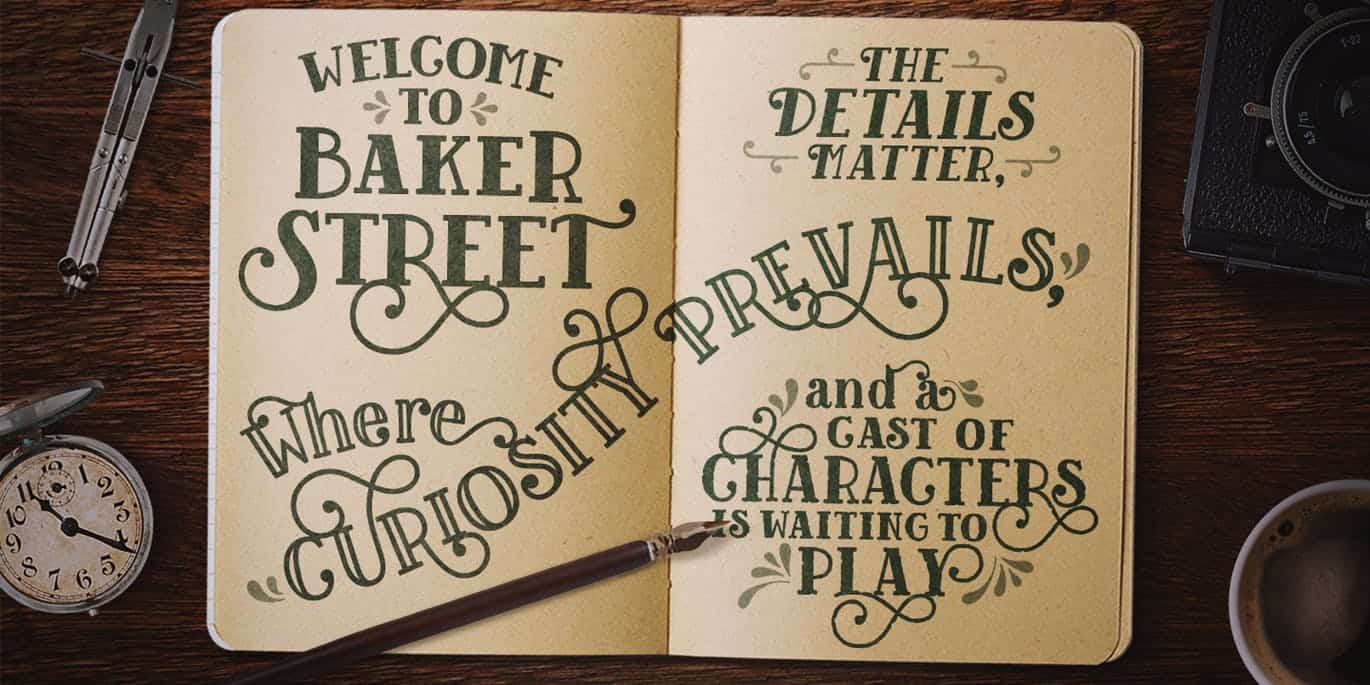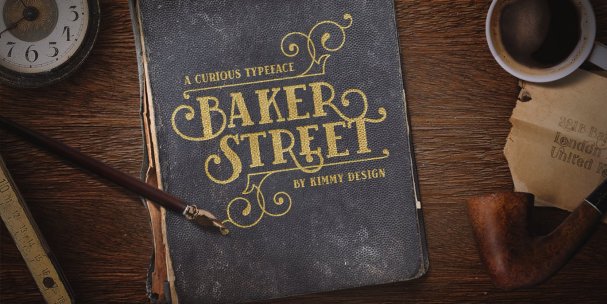
Baker Street Rough Font
Baker Street Rough Font is available for free download. This is a Westminster typeface and it is quite similar to the baker black oblique font. His hobby designed and shared by the use of the vintage layout. The awareness is a fashionable specific signature font that looks as league gothic font and to is needed to preserve in thoughts.
This font is straightforward to use, the basis of this extremely good font is its simplicity. It‚Äôs fantastic for specific branding, photograph overlays, watermark, corporation card, invitations, and so forth. It’s miles a chain of harmonious font sizes that have the best percent that the general public view as ‚Äúappealing‚Äù. Baker Street Rough Font Free We‚Äôre interested in subjects which may be lovely and the maximum excellent subjects have satisfactory proportions.
Keep in mind it or no longer, that is going the same for font sizes!. Download Attention modern font this is much like manifesto font combines many terrific additives from the font of the sooner to create something new, smooth and with a contemporary-day taste. It’s miles a headline font. It has mixed collectively an attractive and familiar font that looks extremely good in a logo or on a corporation card, giving them a look that‚Äôs unique.